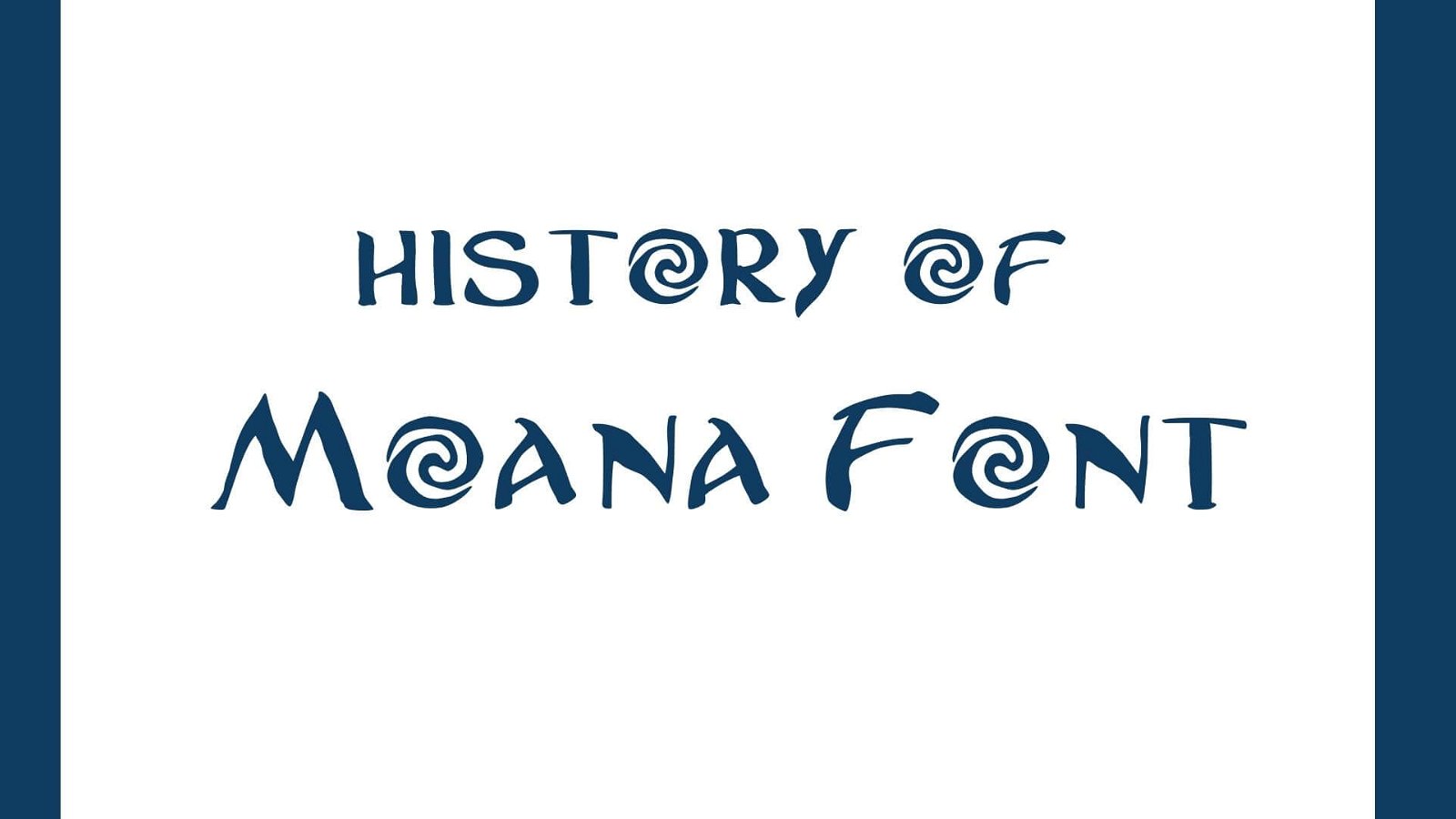
Moana Font is a popular and high-quality typeface designed many years ago as a neat and elegant typeface. It is a Disney font that was originated by JoannaVu and is accessible for every purpose. The font is designed many years ago in free and paid versions. In its free versions, you can get a complete approach to many characters that you can use in different prominent places.
Since the font releases, it has been applied in numerous places by many designers because of being an elegant and worth conceiving typeface. It is being stimulated by one of the notable animated characters of Disney. It is a sans-serif typeface that is specially designed for Headings and places where the text needs to be highlighted. It carries upper case and lowers case letters, symbols and some typeface styles.
Moana Font History
Moana font came into being many years ago after being inspired by one of the animated characters of popular Animated movie Disney. Despite many years, Disney movie is still acknowledged everywhere and so does its typeface its typefaces. It is a handwritten typeface that provides an elegant touch to design and let people appreciate the typeface.
With time, many changes have been made in this typeface to make it more versatile. It is an intricate handwritten typeface with a sharp, lively kind. It has streaming moves, allowing you to make dazzling hand-made typography. It can be a perfect choice on numerous platforms and would be an ideal choice. The font can be downloaded in different formats.
Furthermore, you can get your hands on different alternatives to this handmade typeface i.e Dodge Font that carries many similarities with Moana and is an appropriate choice. The designer designed this typeface while keeping in mind the need of designing a typeface that is neat and elegant and gives you friendly and handwritten vibes. It carries many styles and weights including Bold, medium, Bold Italic, Regular and many other weights.
Usage of Moana Font
Moana has been widely used everywhere since it introduces and is still often considered the first choice when it comes to using a handmade typeface. In 2016, it showed up for the first time and in no time seized worldwide attention for all the right reasons. Let’s highlight those platforms where it made an appearance and instantly tool everyone’s attention.
1- Logos
Moana font was first used on the logo of one of the Disney characters Moana so using it on Logos would be a great choice so far. You can use on every logo as it gives neat and elegant vibes and you can never go wrong with this font for this purpose.
2- Products
Handwritten fonts are always the best choice to be used in different products including T-shirts and other products. For instance, you might have observed this font being used in different T-shirts.
3- Others
What Type of Font Is Moana Font?
It is a sans-serif typeface that came into being by JoannaVu in 2016. The font was created after being inspired by one of Disney’s animated character Moana. Since then, the font has been used by many beginners and professional designers in their projects.
Where Moana Font Can Be Used?
Moana font can be applied in many places. You can use the font in Logos, Posters, Banners, websites, Headings, Titles, texts, office work, Educational work, and many other such places. Or in place of this font you can also use the Alice in Wonderland Font.
Is Moana Font Worth Using?
Moana is a worth considering typeface that is mostly the first choice of designers. You can make excessive use of this font in your projects based on every level. Hence, it is surely one of the worth using typefaces.